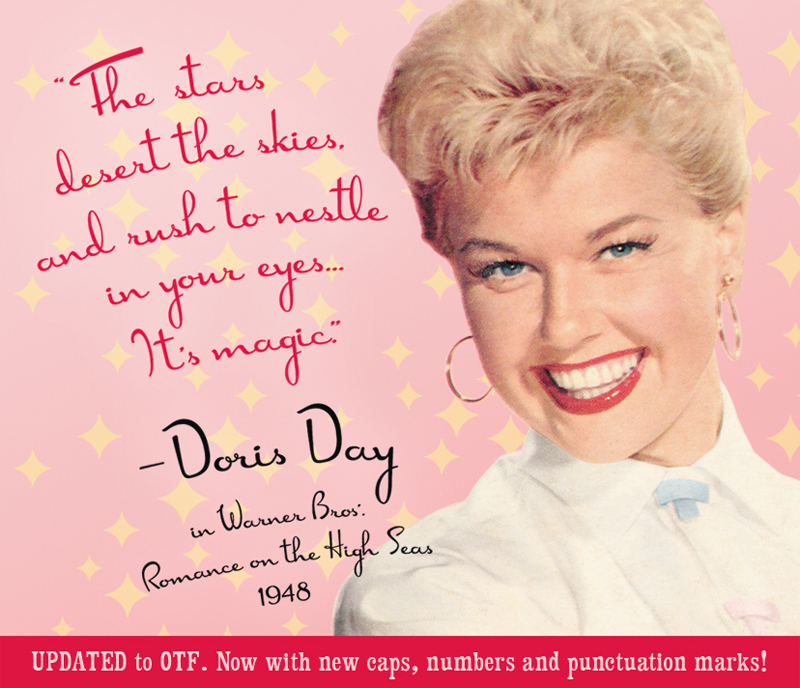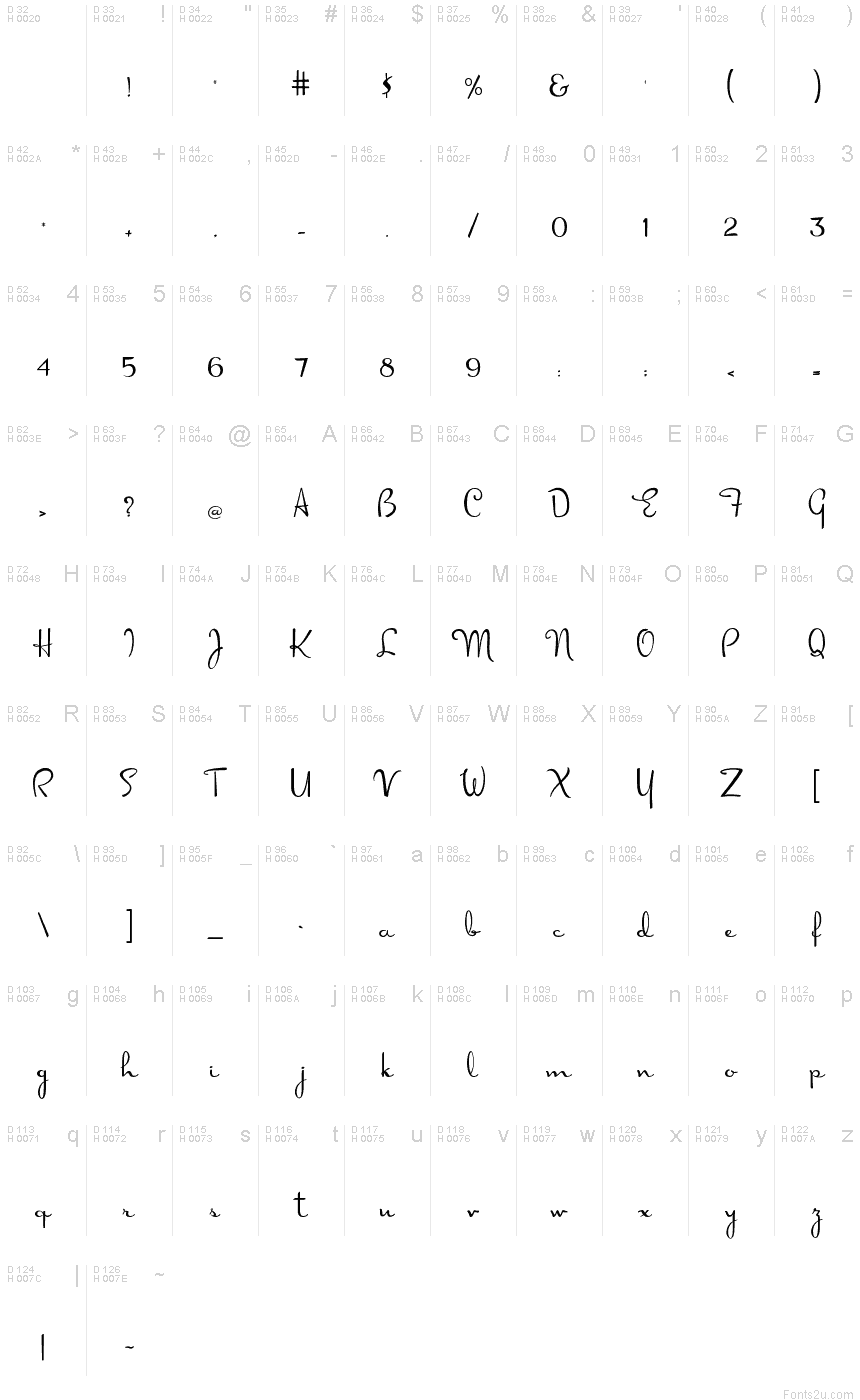
DorisDay
"DorisDay" font is pretty much a collage of letters that appeared in 1940's thru 60's magazine ads. A few years ago I made the lower cases and then combined them my font "Individual" (caps I traced from "The ABC of Lettering by J.I. Biegeleisen") I was never happy with this combination of fonts and it has been bothering me for years. Finally I sat down and added number, punctuations and the capital letters "Doris Day" deserved. I also reshaped some of the original letters. Now "Individual" it's on it's own again.